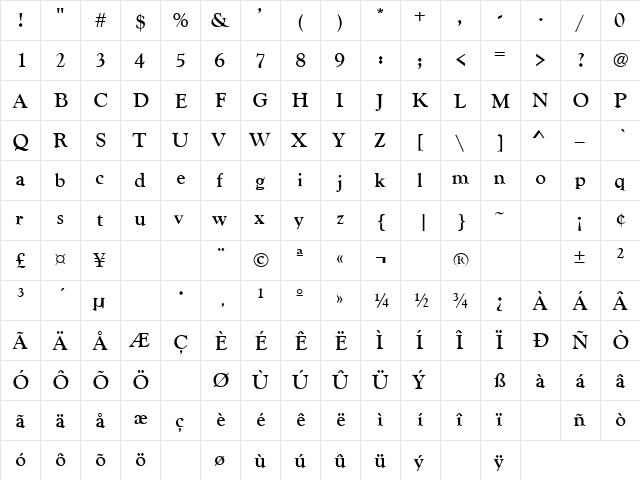
Reefer Head Woman 4 Bold
Design Context for Reefer Head Woman 4 Typeface
Reefer Head Woman 4 offers clean, dependable letterforms without strong stylistic allegiance, making it a practical choice for designers who need flexibility. Its bold stroke weight gives it real presence on the page.